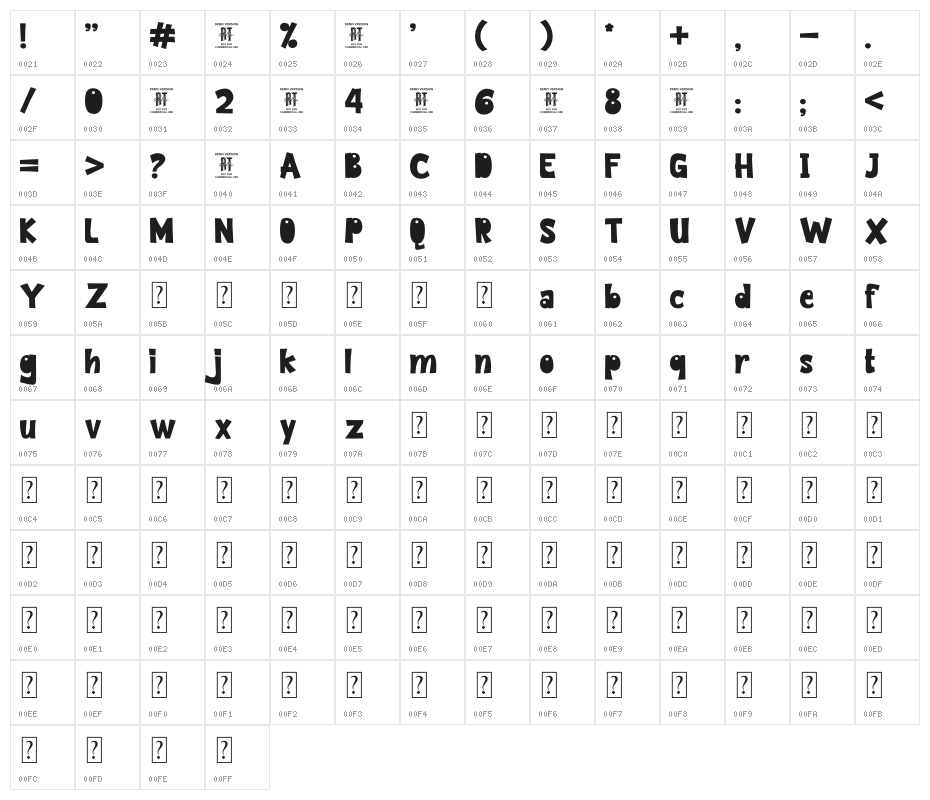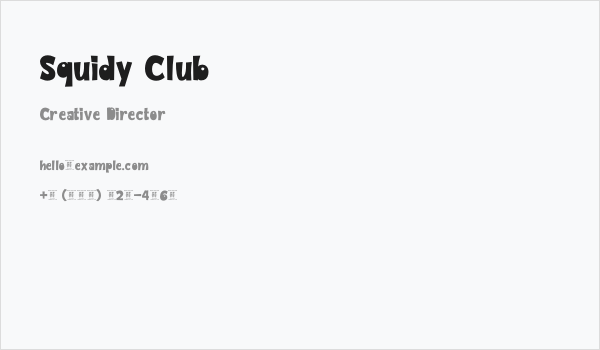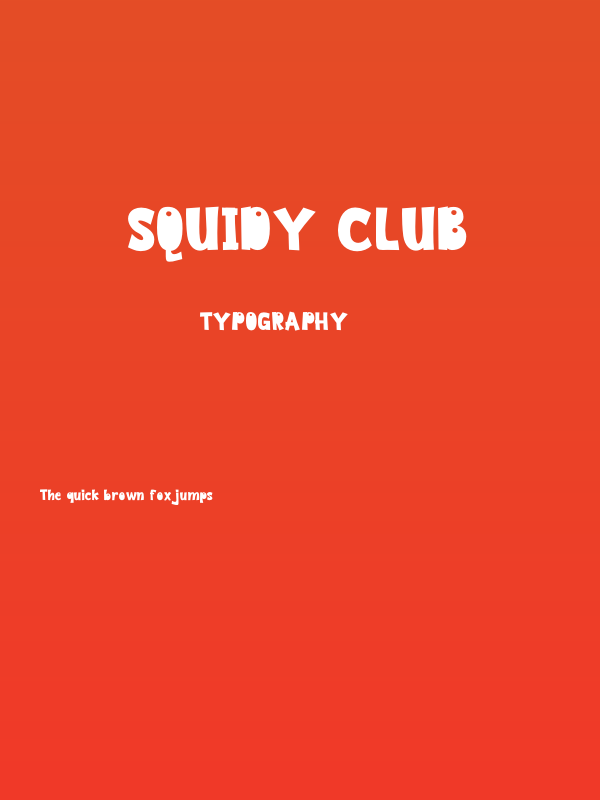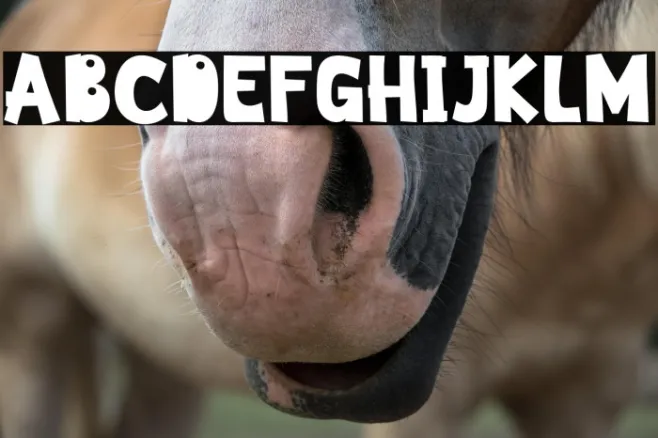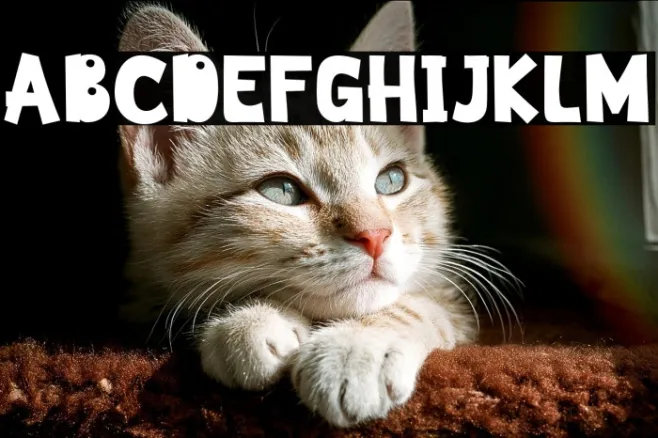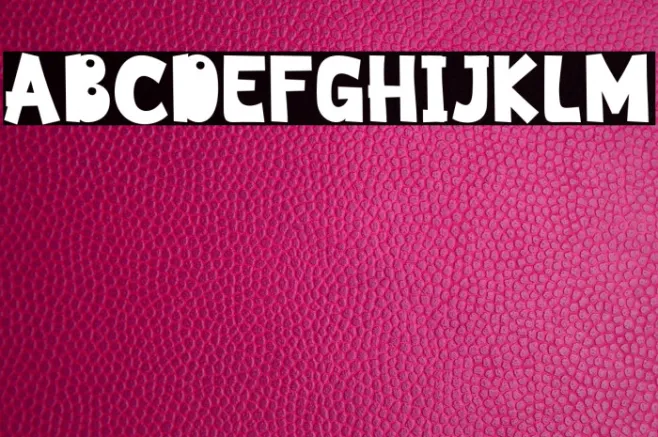
Squidy Club Font
| Gesamtstil | Playful |
| Vorgeschlagene Projekte | Ideal for children's books, playful branding, party invitations, and creative posters. |